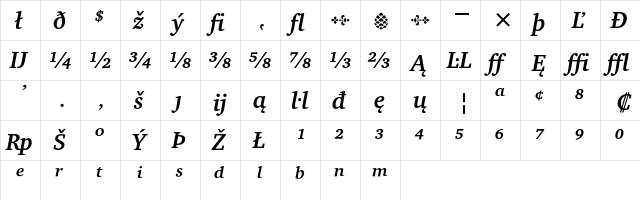
ITC Charter Bold Italic Extension Font Preview
Design Context for ITC Charter Typeface
ITC Charter offers clean, dependable letterforms without strong stylistic allegiance, making it a practical choice for designers who need flexibility. Its italic angle brings a sense of urgency and motion to the letterforms. The heavy weight commands attention and anchors typographic hierarchies.
Pro Tip: Try ITC Charter for annotation and caption copy alongside an upright companion — the contrast in angle creates a dynamic but ordered typographic system.